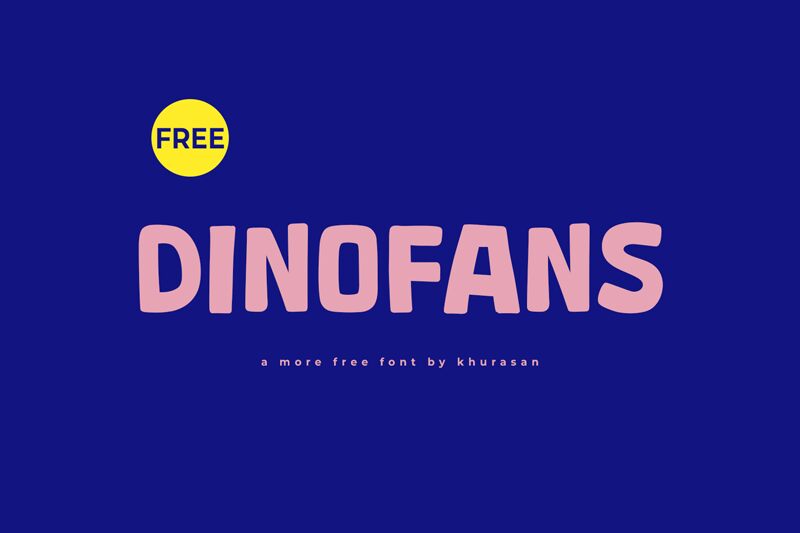
Dinofans
The Dinofans font emanates a playful, whimsical charm that instantly captures the imagination. With its bold, dynamic strokes and distinctive cartoon-like aesthetic, this display font exudes a sense of adventure and youthful energy. The angular, almost dinosaur-inspired letterforms lend the design a captivating, contemporary flair, making it an ideal choice for brands, illustrations, and designs seeking to convey a fun, quirky, or nostalgic vibe.
Dinofans' versatility extends across a wide range of applications, from eye-catching headlines and logos to vibrant product packaging and children's stationery. Its bold, legible structure ensures optimal readability, while the font's distinctive character lends itself seamlessly to creative projects that aim to capture a sense of playfulness and individuality.